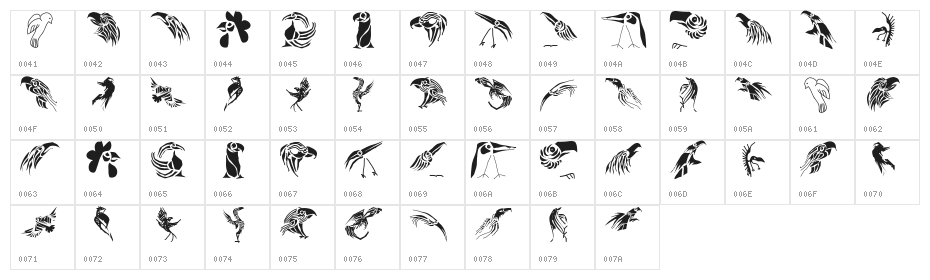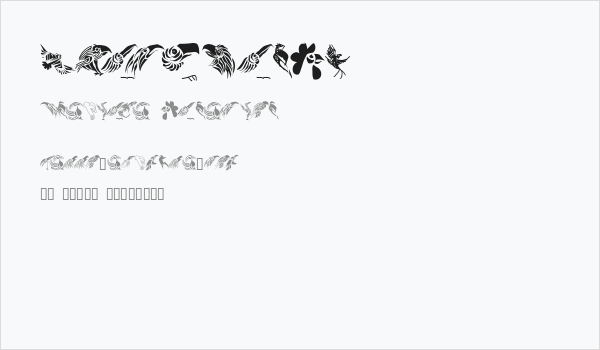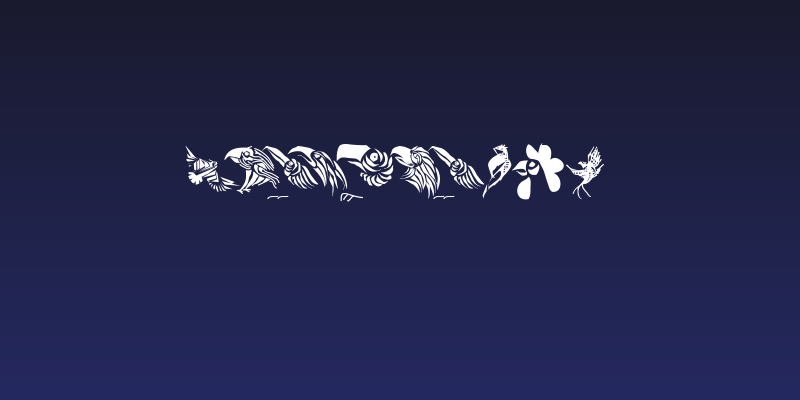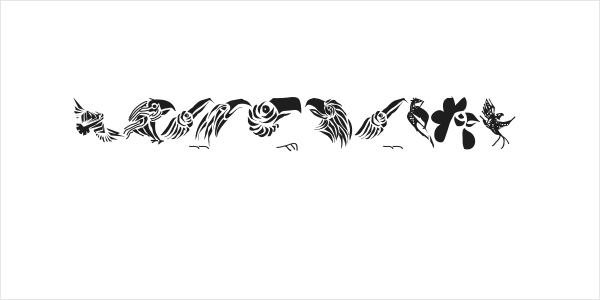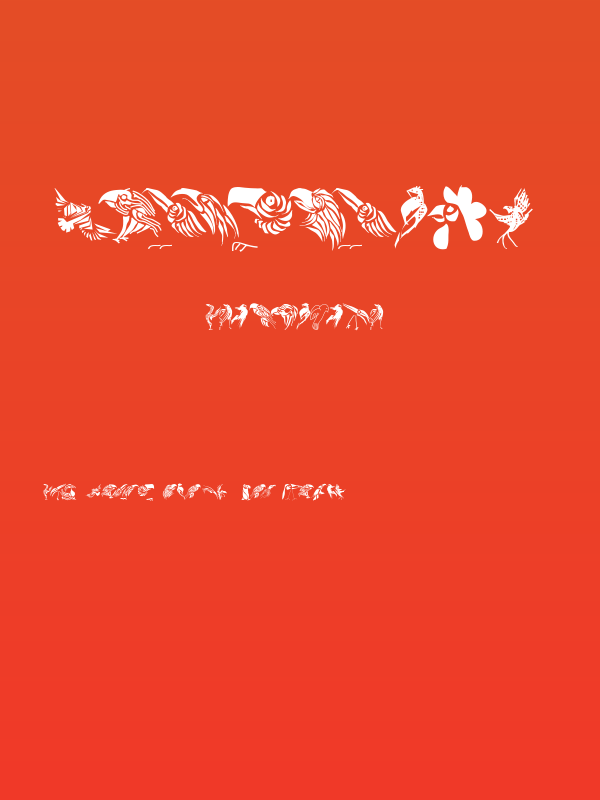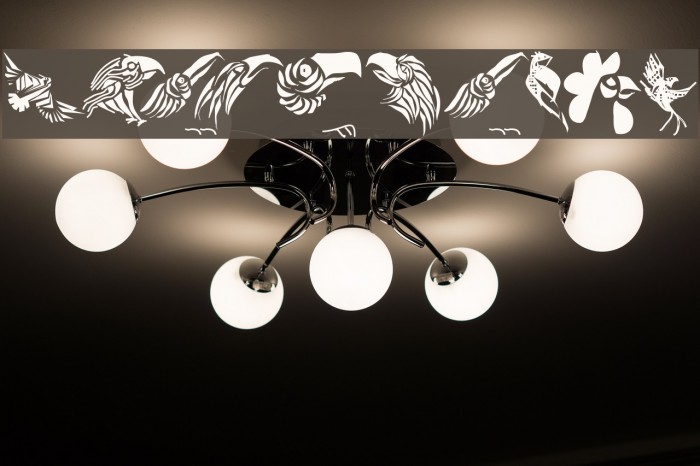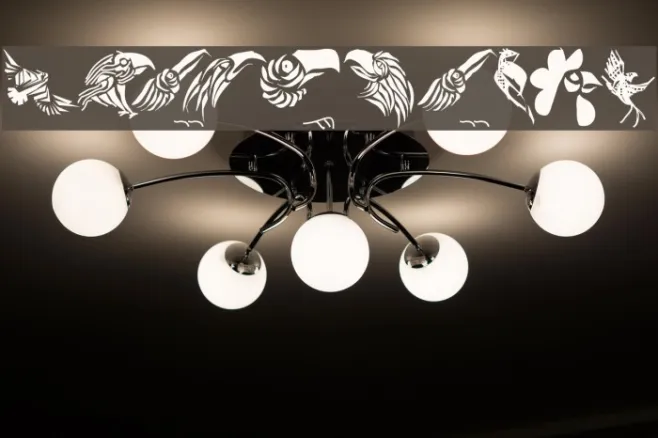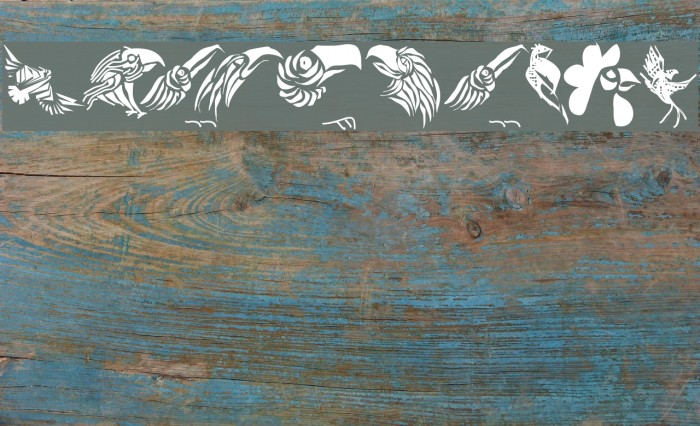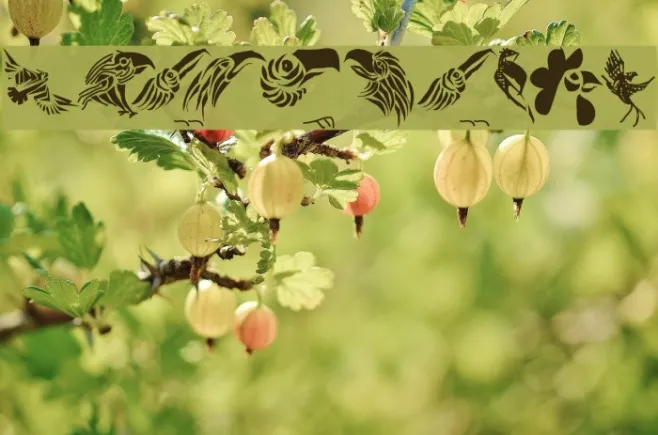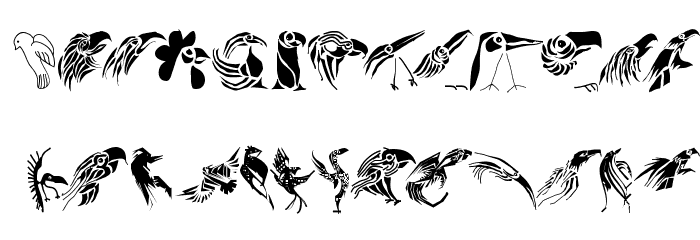
QuickBirds Font
QuickBirds Description
This decorative font is a unique and artistic representation of letters and numbers, each crafted to resemble various bird shapes and forms. The characters are intricately designed, with each letter incorporating elements of bird anatomy such as wings, beaks, and feathers. This creates a whimsical and nature-inspired aesthetic. The font is highly stylized, making it more suitable for creative and artistic projects rather than formal or traditional text settings. The characters are evenly spaced, ensuring readability despite their complex designs. The overall style is playful and imaginative, perfect for projects that aim to capture attention and convey a sense of creativity and freedom.
| Use Case | Logos, Headlines, Artistic projects |
| Proposed Projects | Ideal for nature-themed posters, children's book covers, creative branding, and artistic invitations. |